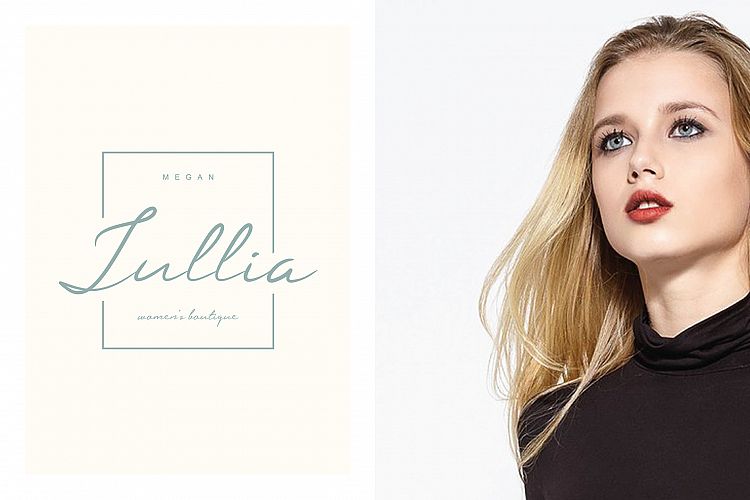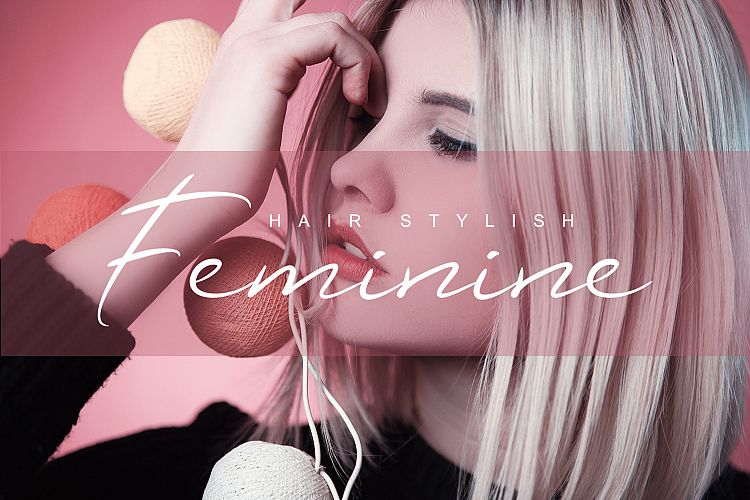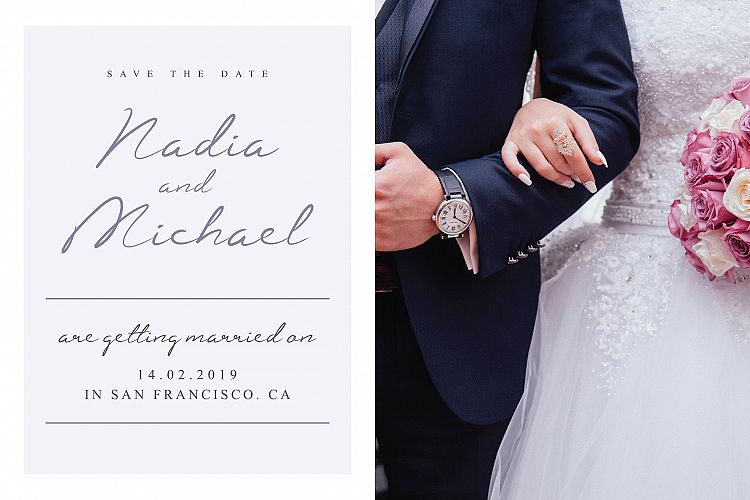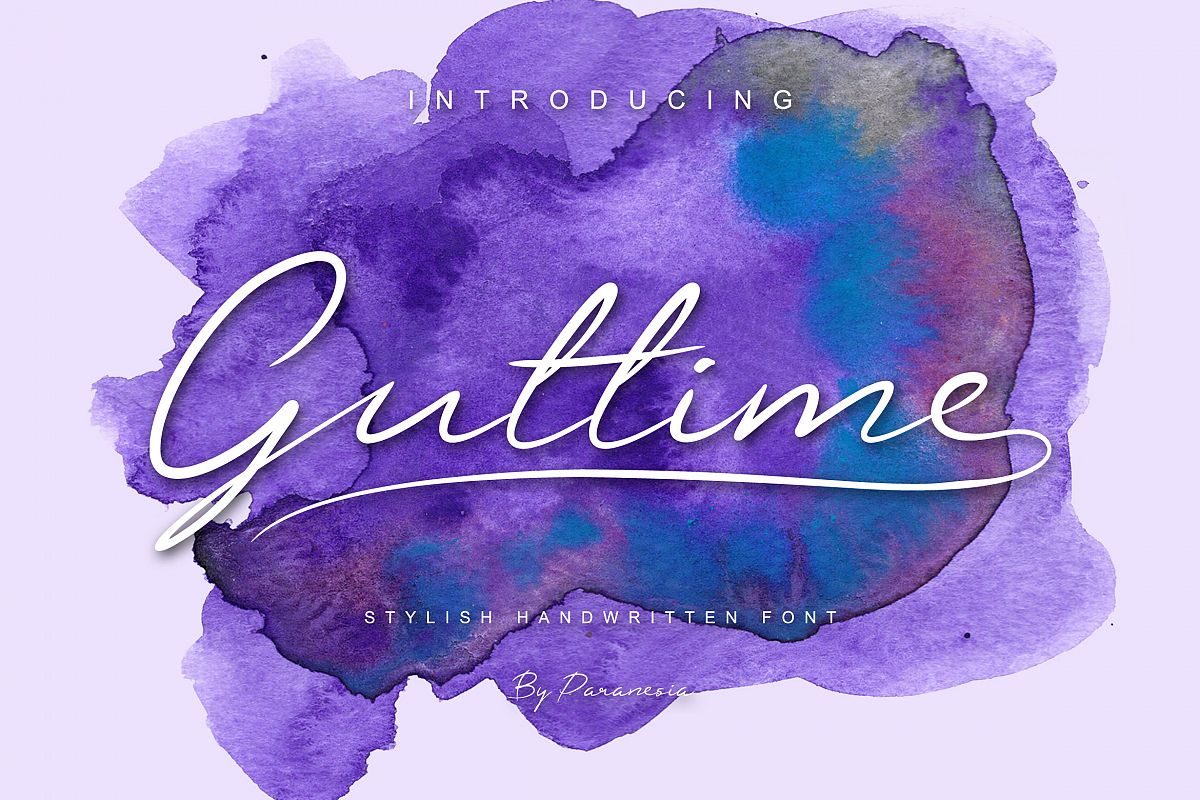
Guttime Script Font
Introducing the new Guttime Script Font!
Guttime Script is modern script that perfect for signature, photography, megazine, title book cover, logos, cloting, card, branding and any hand-lettered needs. It is so beautiful and classy.